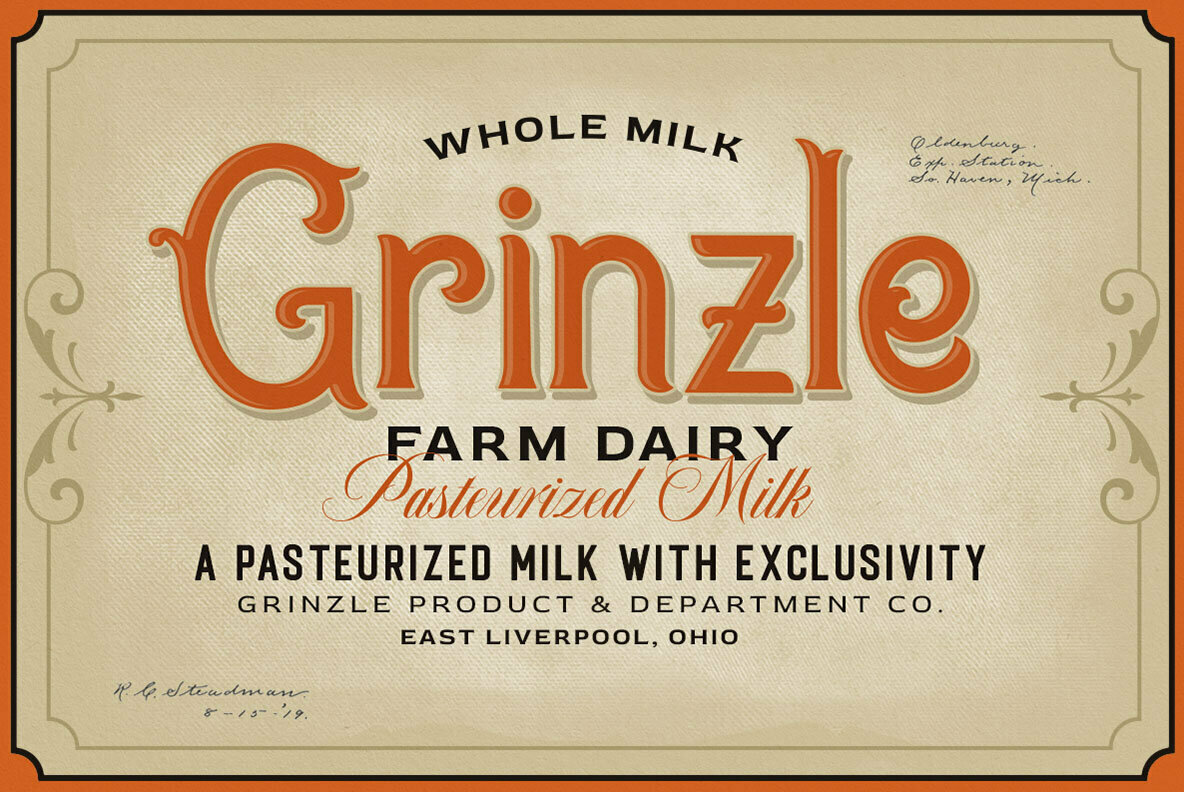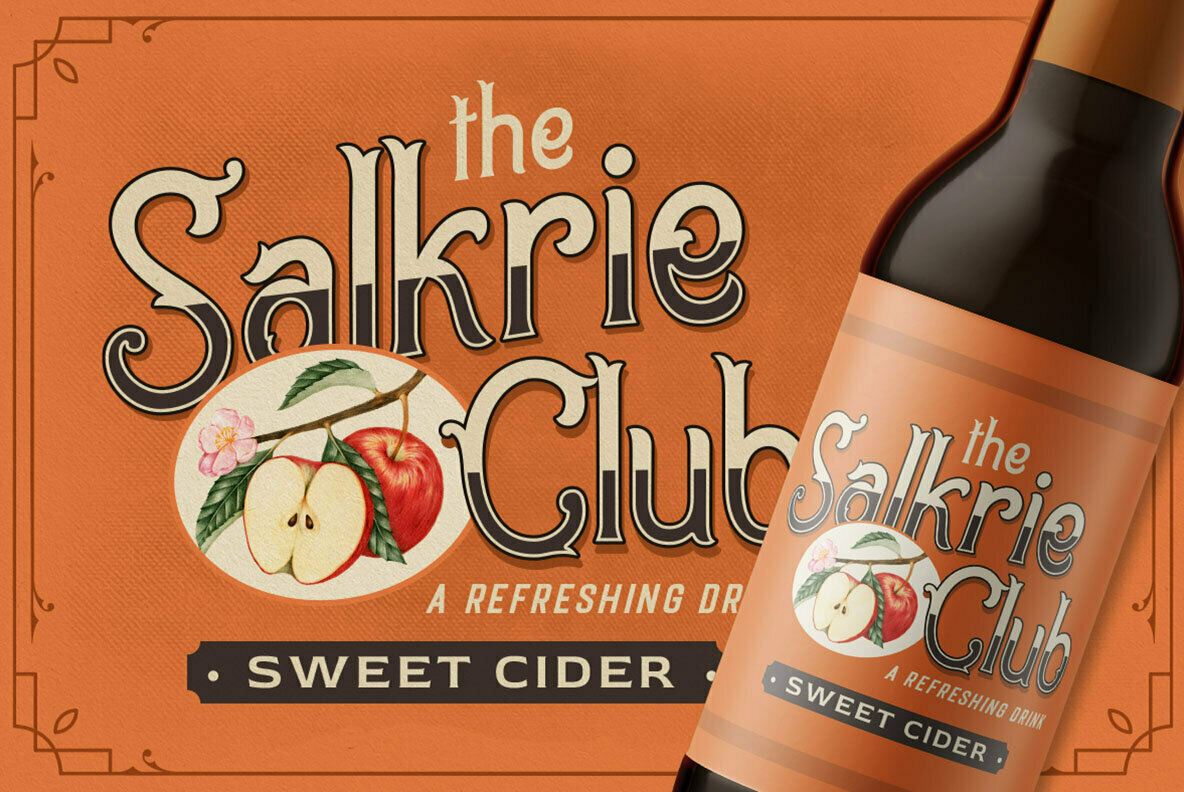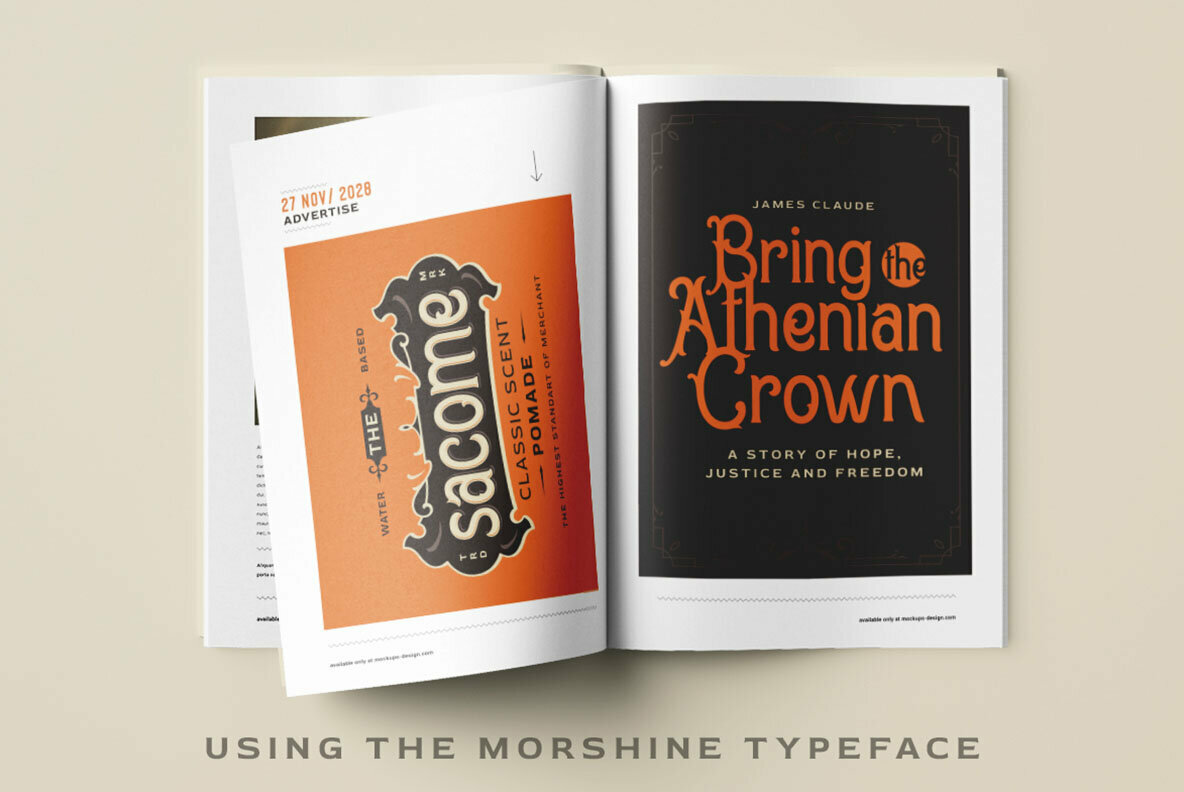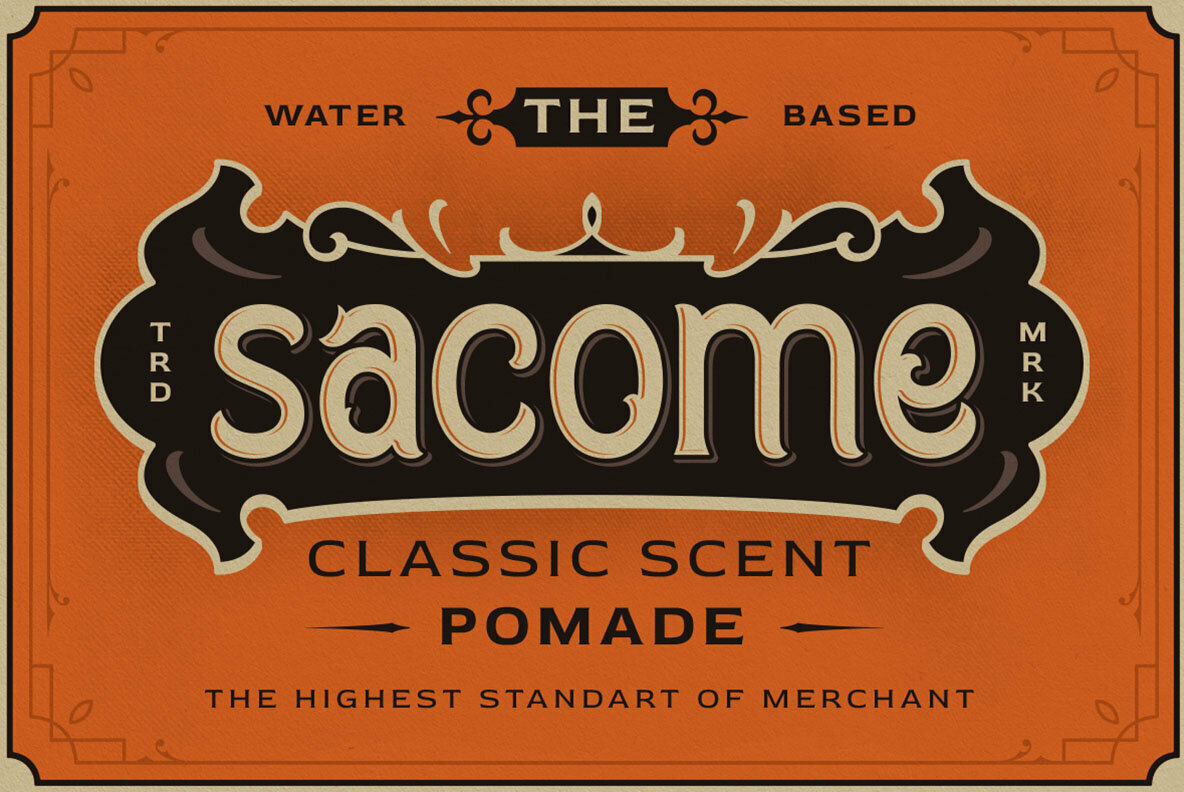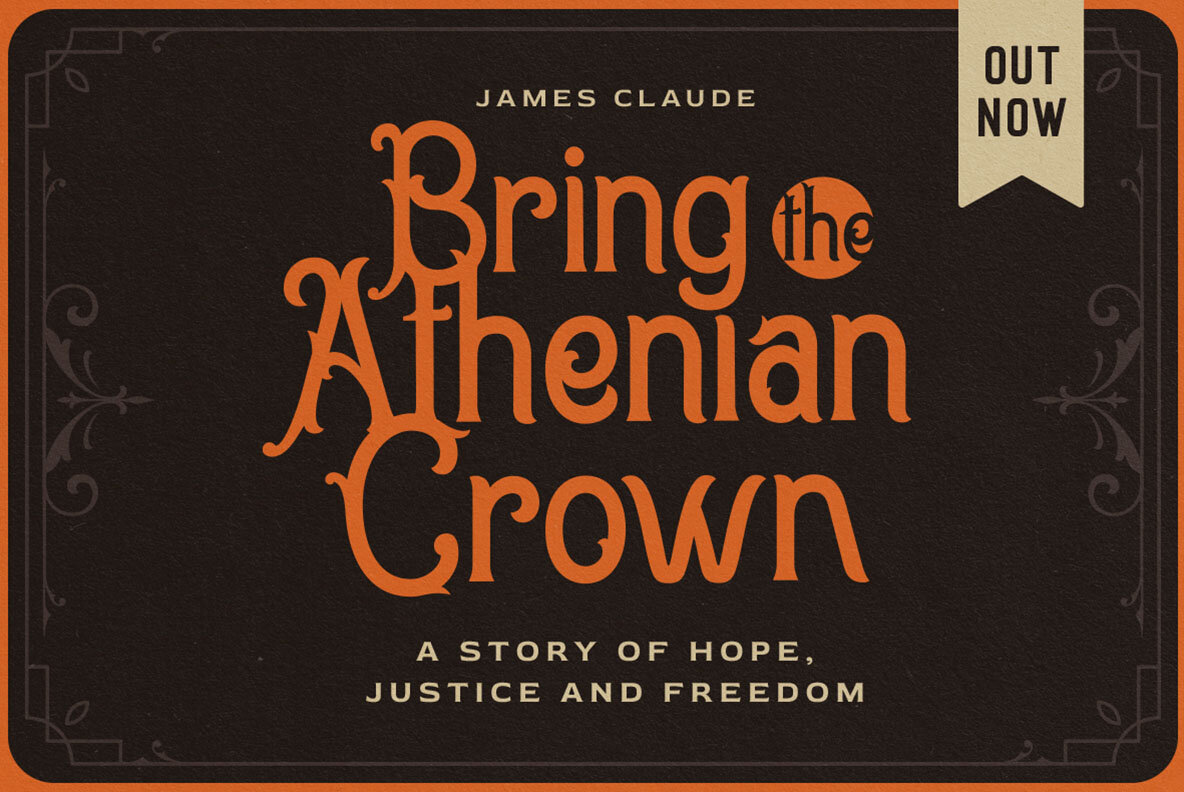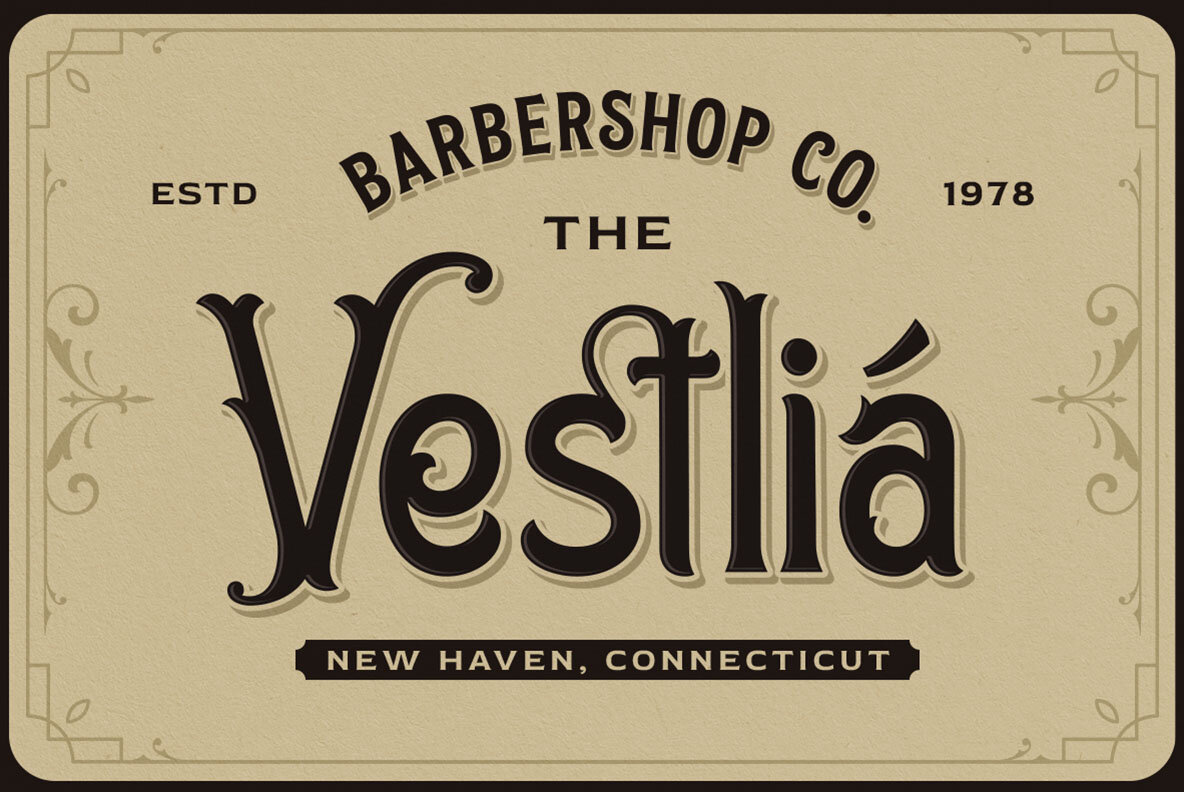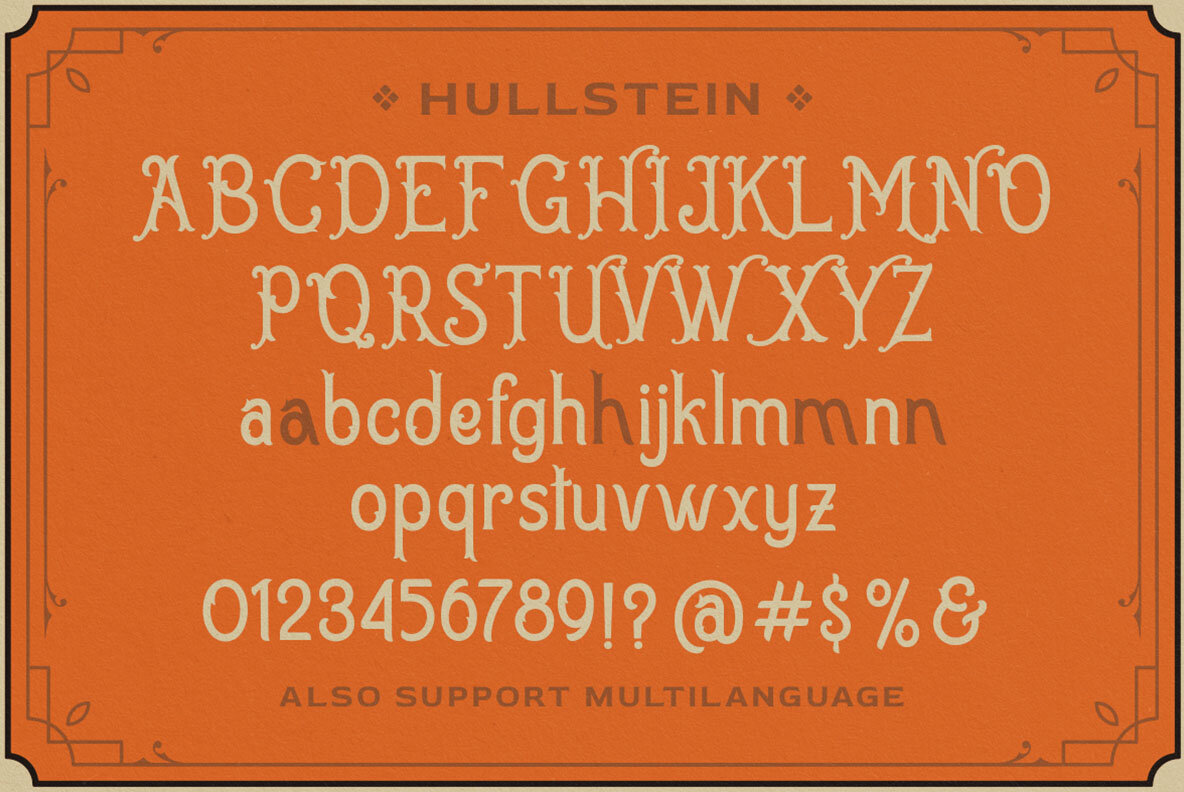
Hullstein Font
Hullstain Regular
Step back into the elegance of a bygone era with Hullstein, an ornamental serif font that seamlessly blends class and nostalgia. Drawing inspiration from iconic 60s and 70s signage, Hullstein introduces a vintage flair to modern design. Ideal for logos, invitations, labels, and more, this font offers a versatile typographic solution that suits formal and stylish projects alike. For optimal use, we suggest employing design software that supports OpenType features and glyph panels, such as Adobe Creative Suite and CorelDRAW, allowing you to fully explore Hullstein's typographic potential.Hullstein: Vintage-Inspired Ornamental Serif